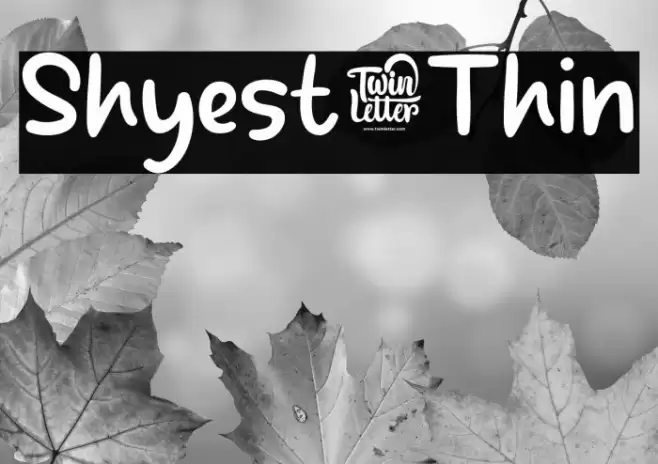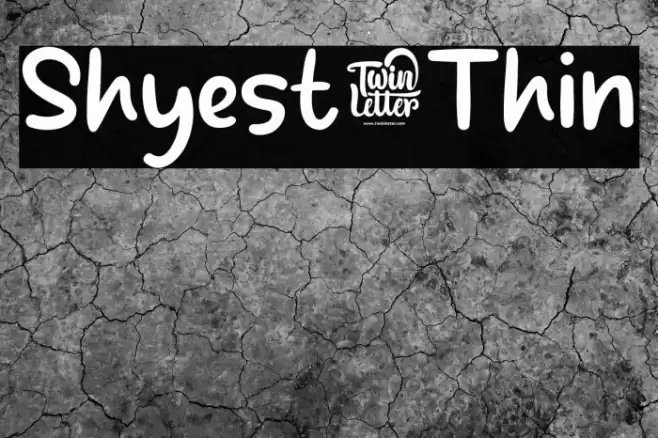
Shyest-Thin Font
Shyest-Thin Description
This playful and friendly font features a handwritten style with rounded edges and a casual appearance. The characters are slightly irregular, giving it a natural and organic feel. The uppercase letters maintain a consistent height, while the lowercase letters have a more varied baseline, adding to the informal charm. The numerals and special characters are designed to match the overall style, ensuring a cohesive look across all text elements. This font is ideal for projects that require a personal touch, such as invitations, greeting cards, or children's books. Its approachable and warm aesthetic makes it suitable for conveying messages in a lighthearted and engaging manner.
A playful, handwritten font with rounded edges and a casual, friendly style from Uncategorized fonts.
- Proposed Projects: Ideal for invitations, greeting cards, children's books, and any project needing a personal touch.
- Overall Style: Casual, Playful
- Use Case: Headlines, Logos, Informal Text